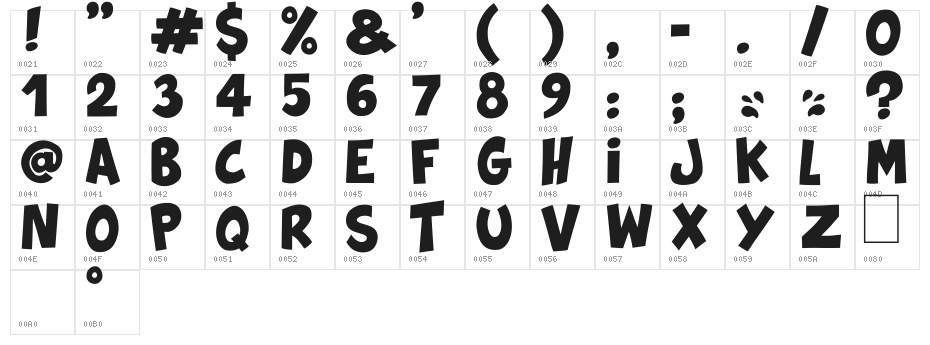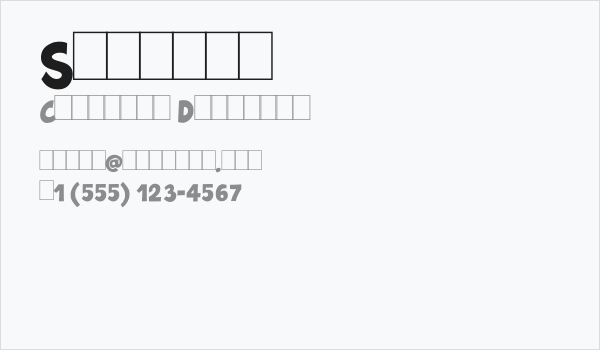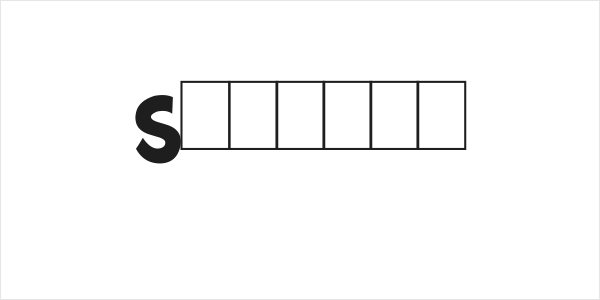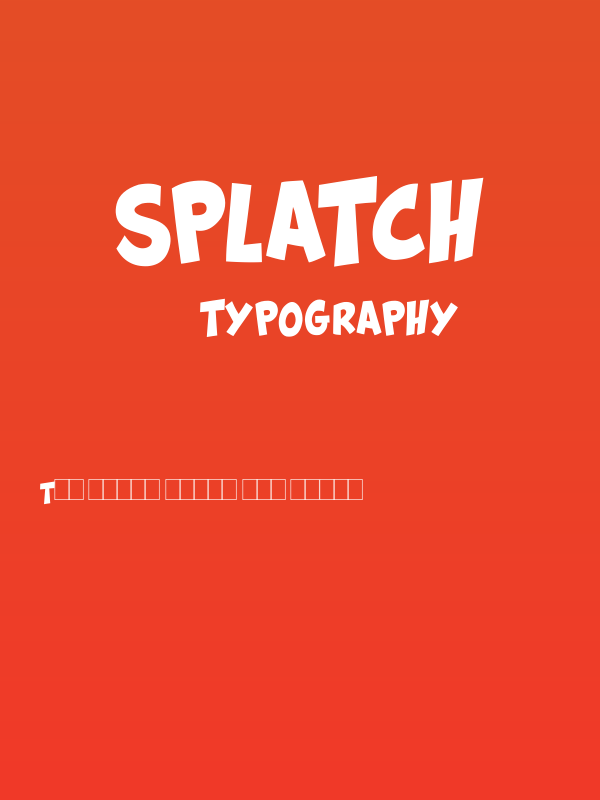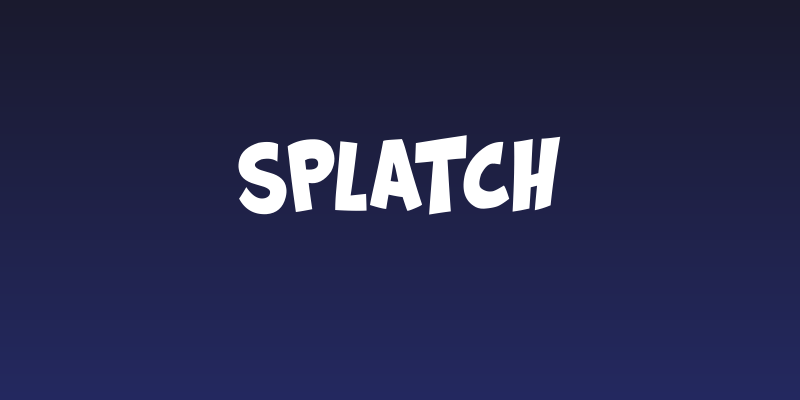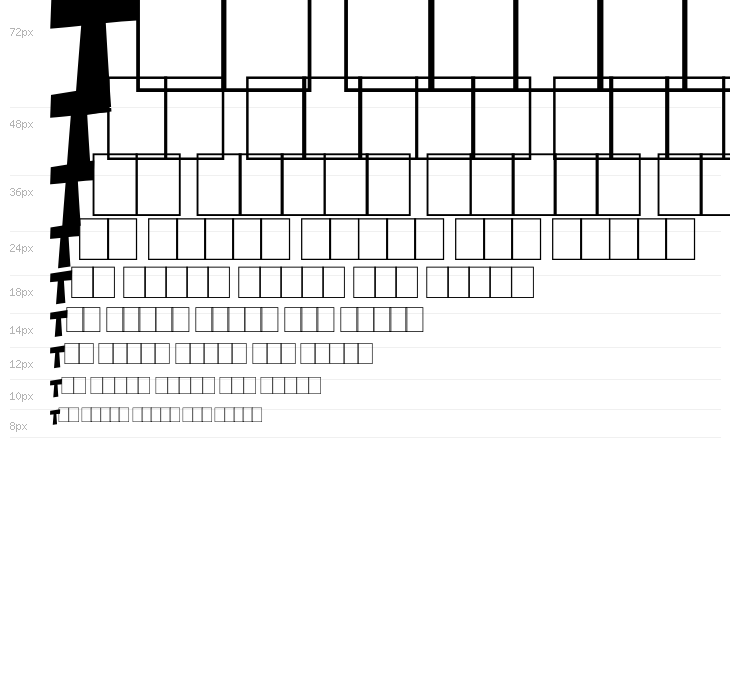
Splatch Font
Splatch Description
This font exhibits a playful and bold style, characterized by its thick, uneven strokes and slightly irregular shapes. The letters have a cartoonish and dynamic appearance, with a sense of movement and energy. The uppercase and lowercase letters maintain a consistent style, with rounded edges and a slightly exaggerated form. The numbers and special characters follow the same whimsical design, making the font suitable for creative and informal applications. Its boldness ensures high visibility and impact, making it ideal for attention-grabbing designs.
| Overall Style | Playful, Cartoonish |
| Proposed Projects | Ideal for children's books, comic strips, playful branding, and eye-catching posters. |